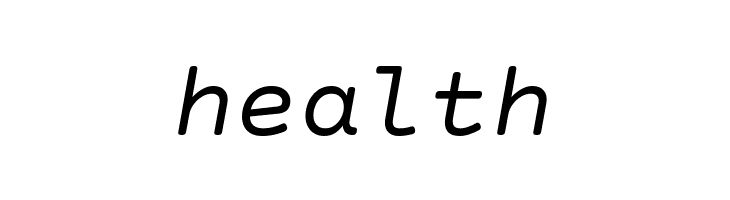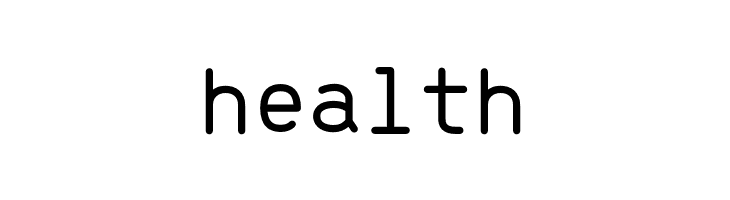
A monospaced font with bold, geometric characters and distinctive crossbars.
A modern, monospaced typeface with a technical and minimalist design.
A classic monospaced typeface with a clean, uniform appearance.
A modern, monospaced font with uniform character width and a clean design.
A modern, monospaced typeface with rounded edges and a playful style.
A modern, italic monospaced font with medium contrast and normal spacing.
A bold, monospaced font with a modern and technical style.
A modern, monospaced typeface with geometric structure and uniform spacing.
A bold, monospaced font with a clean and modern design, ideal for technical applications.
A bold, italicized monospaced font with a modern and professional look.
A clean, monospaced font ideal for coding and technical documents.
A monospaced font with slab serif elements, offering a structured and uniform appearance.
A monospaced, typewriter-inspired font with a slight slant and low contrast.
A modern, monospaced font with a clean and uniform design.